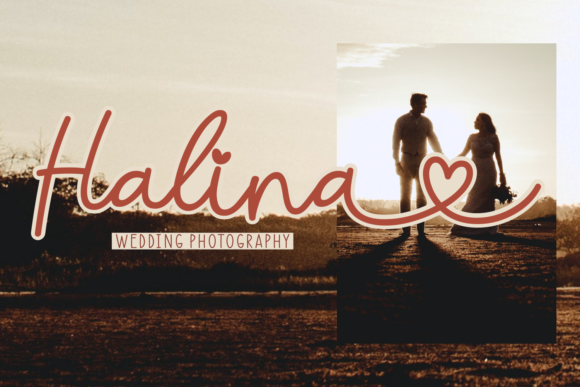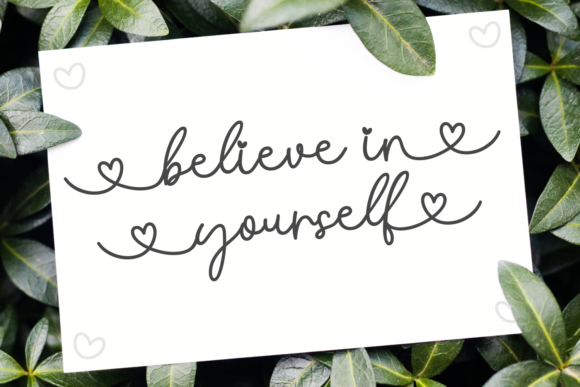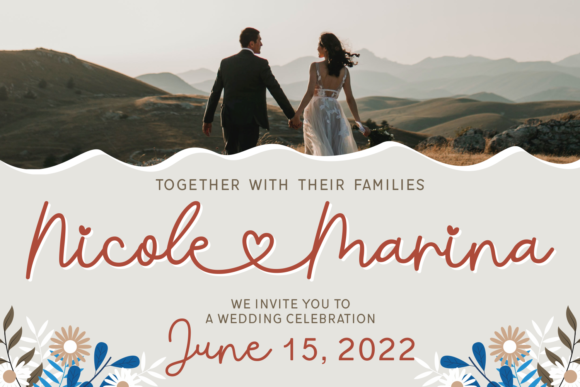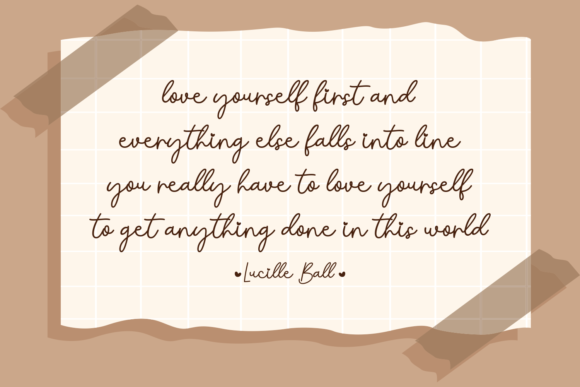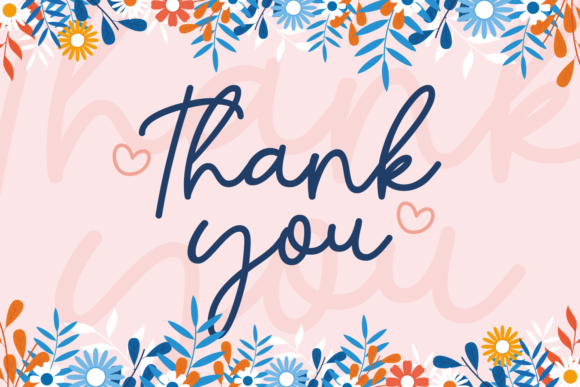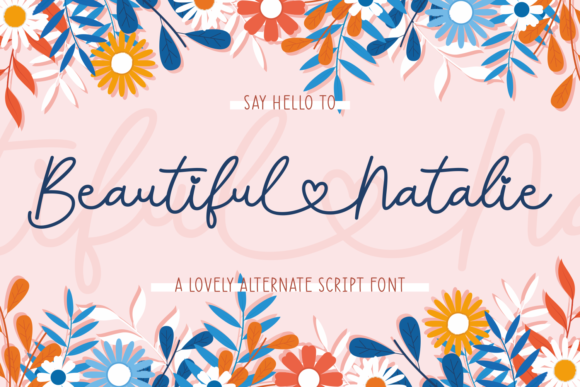
Introducing Beautiful Natalie Font: Elevate Your Designs with Elegance
Are you a designer or crafter looking for a font that exudes sophistication and style? Look no further than Beautiful Natalie Font, an elegant script font that brings a touch of classic calligraphy to the modern world. With its impeccable form and contemporary atmosphere, this font is perfect for a wide range of design projects.
Inspired by Timeless Classic Calligraphy
Beautiful Natalie Font draws inspiration from the timeless world of classic calligraphy, where artistry and technique come together to create something truly beautiful. The font’s elegant lines, flowing curves, and precise letterforms evoke the feeling of handwritten calligraphy, perfect for designs that require a personal touch.
Whether you’re working on a wedding invitation, a branding project, or a packaging design, Beautiful Natalie Font is sure to add a touch of sophistication and refinement. Its classic inspiration ensures that your designs will stand the test of time, remaining elegant and stylish for years to come.
Contemporary Atmosphere and Impeccable Form
While Beautiful Natalie Font is inspired by classic calligraphy, it also boasts a distinctly contemporary atmosphere. The font’s sleek lines, subtle curves, and carefully crafted letterforms give it a modern feel that’s perfect for designs that require a fresh, updated look.
The font’s impeccable form ensures that it’s easy to read and understand, making it perfect for body text as well as headings and titles. Whether you’re working on a digital project or a print design, Beautiful Natalie Font is sure to deliver exceptional results.
One of the standout features of Beautiful Natalie Font is its PUA (Private Use Area) encoding. This means that you can access all of the font’s glyphs and swashes with ease, giving you a wide range of creative options at your fingertips.
With PUA encoding, you can easily insert glyphs and swashes into your designs, adding a touch of personality and flair to your work. Whether you’re looking to add a decorative flourish or create a unique visual effect, Beautiful Natalie Font’s PUA encoding makes it easy to achieve your design goals.
Beautiful Natalie Font is perfect for designers and crafters who are looking for a high-quality script font to add to their collection. Whether you’re working on a client project or a personal craft, this font is sure to deliver exceptional results.
Designers will appreciate the font’s flexibility and versatility, making it perfect for a wide range of design projects, from branding and packaging to web design and advertising. Crafters will love the font’s elegance and sophistication, making it perfect for handmade crafts, such as wedding invitations, cards, and gift tags.
Key Features of Beautiful Natalie Font
• Elegant script font with a contemporary atmosphere
• Inspired by timeless classic calligraphy
• Impeccable form and precise letterforms
• PUA encoded for easy access to glyphs and swashes
• Perfect for designers and crafters
• Suitable for a wide range of design projects, including branding, packaging, web design, and more
Beautiful Natalie Font is a stunning script font that brings a touch of elegance and sophistication to any design project. With its classic inspiration, contemporary atmosphere, and impeccable form, this font is perfect for designers and crafters who are looking for a high-quality font to add to their collection.